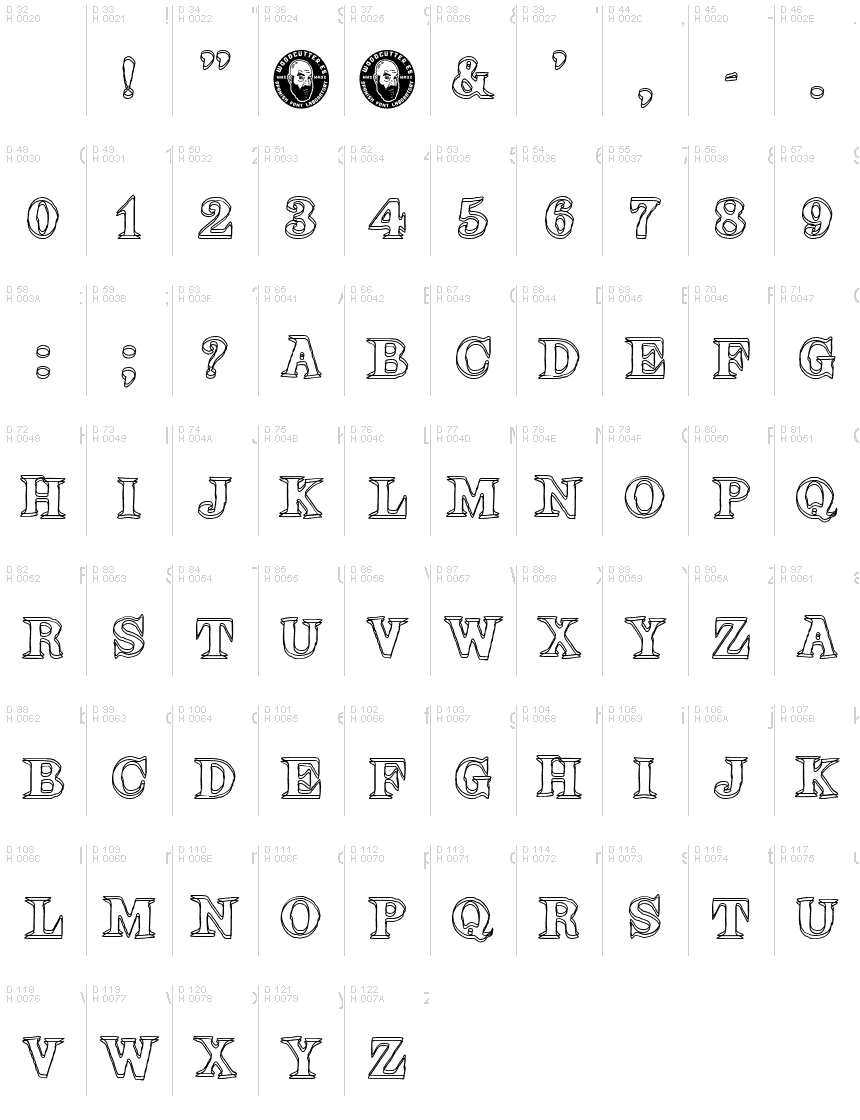
Hello Chilly
Hello Chilly, designed by Woodcutter Manero, is a bold and semi-expanded display font that exudes a playful personality. Its outlined distorted style adds an edgy touch to any design project, making it perfect for branding materials, posters, or even apparel designs. The unique shape of the letters is eye-catching and memorable, ensuring that any message conveyed using Hello Chilly will remain in the minds of your target audience. Whether you're working on a children's book cover or creating marketing materials for a trendy coffee shop, Hello Chilly's semi-bold font typeface is sure to impress.